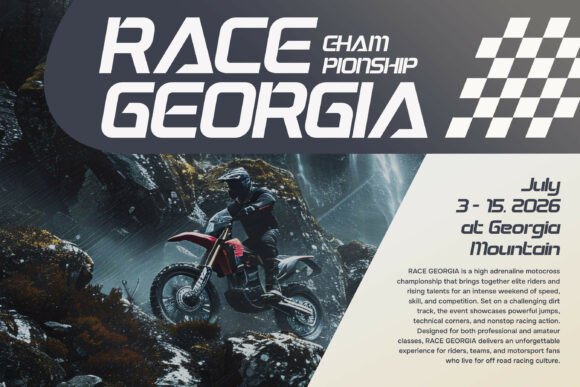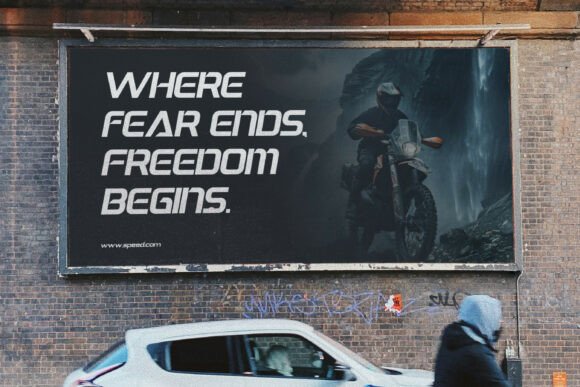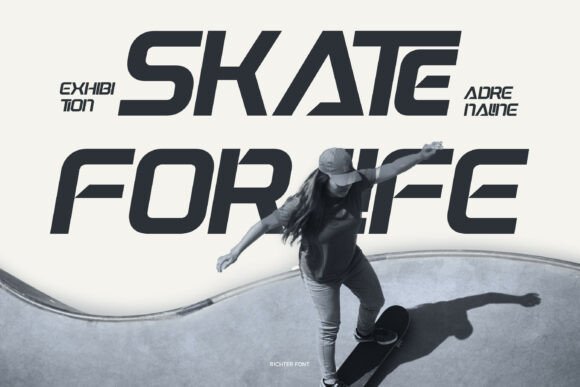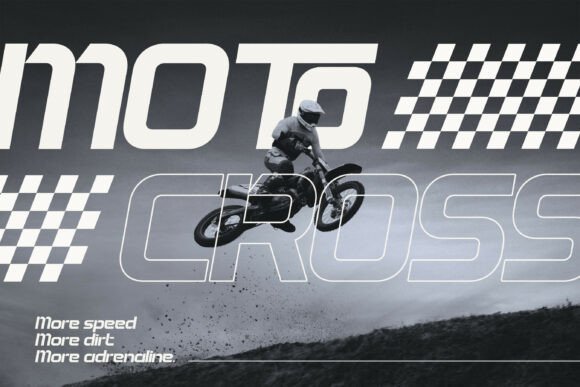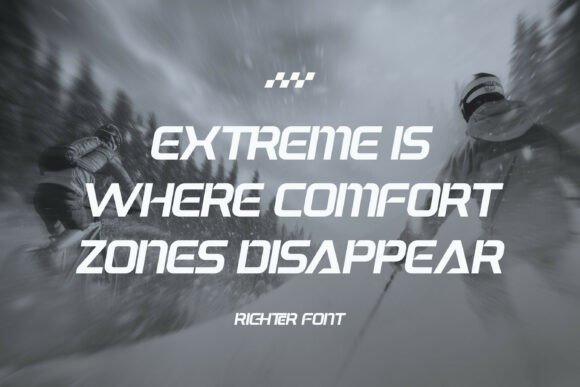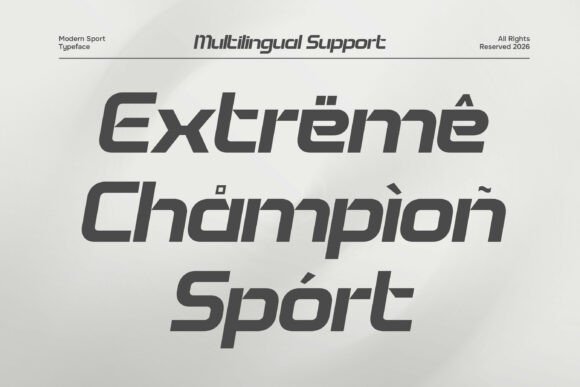
Introduction to Richter Font
Unleash the spirit of high-velocity competition with the Richter font , a modern sport display typeface engineered for speed, power, and precision.
This typeface features aggressive, forward-slanting character architecture and sharp, aerodynamic terminals that mimic the sleek lines of professional racing machinery or high-performance athletic gear As a Richter typeface , it provides an immediate sense of kinetic energy, making it the premier choice for automotive branding, extreme sports logos, and competitive gaming overlays where every millisecond of visual impact counts.
Key Features of Richter Font
Why Choose Richter Font?